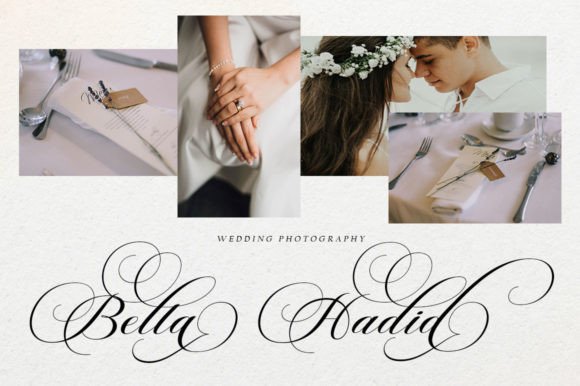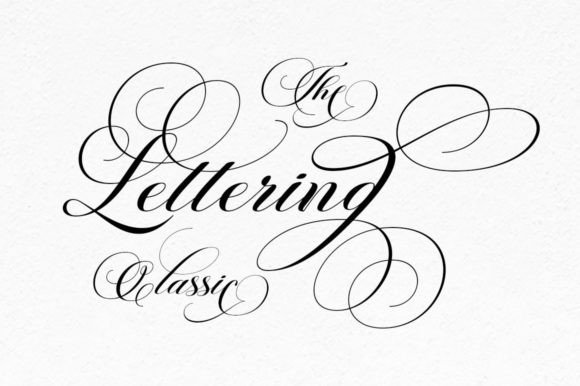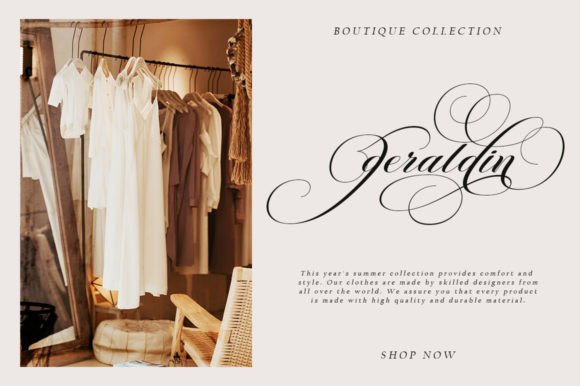
Introduction to Rigestha Font
Do you remember the moment when you stumbled upon the perfect font for your creative project? The one that made your design stand out from the rest? For many designers, that moment is a game-changer. And today, we’re excited to introduce you to a font that’s sure to make your creative juices flow: Rigestha Font.
With its beautiful changing characters and classic decorative copper script style, Rigestha Font is a true gem for designers. Its modern touch and high detail make it a versatile font that’s perfect for a wide range of applications, from formal invitations to fashion labels and restaurant menus. And the best part? It’s PUA encoded, making it easy to access all the amazing glyphs and ligatures.
Whether you’re working on a free download project or need a high-quality design resource, Rigestha Font is an excellent choice. Its transparent background and smooth, clean design make it a joy to work with, and its feminine and sensual feel will add a touch of elegance to any design.
- Unique characteristics of Rigestha Font include its elegant and modern design, making it a great choice for designers working on high-end creative projects.
Honest Review: Rigestha Font
As a designer, I’m always on the lookout for high-quality design resources to enhance my creative projects. Recently, I came across the Rigestha Font, and I’m excited to share my honest review with you.
Here’s what works well: ✨ The font is highly versatile, making it suitable for a wide range of design projects, from logos to typography-based designs. The Rigestha Font also features a transparent background, which is a huge plus for designers who want to achieve a seamless integration with their designs.
Overall, I’d say the Rigestha Font is a solid design resource for personal projects or small-scale designs. While it may not be the best option for commercial use or high-end design projects, it’s a great find for designers on a budget or those who want to add some flair to their creative projects.